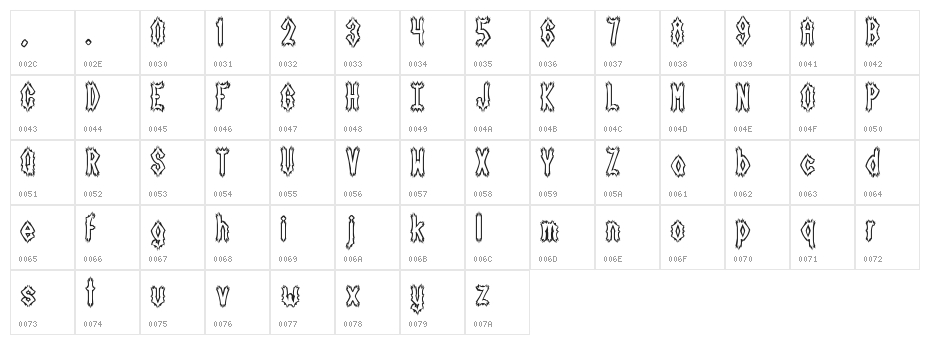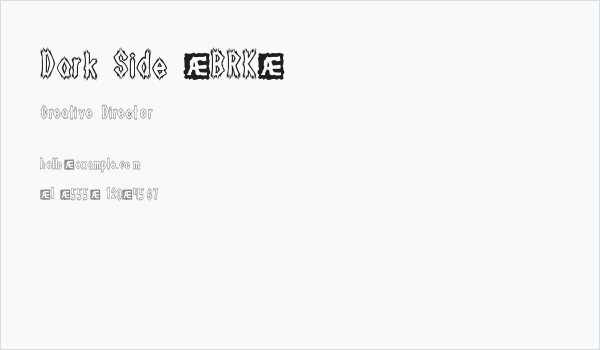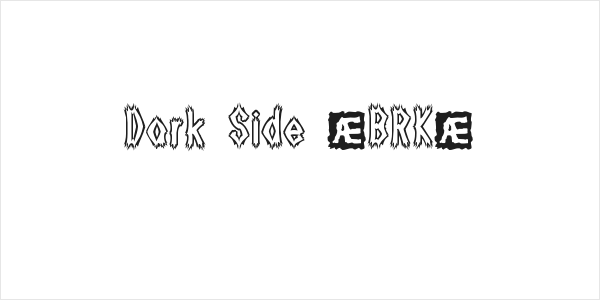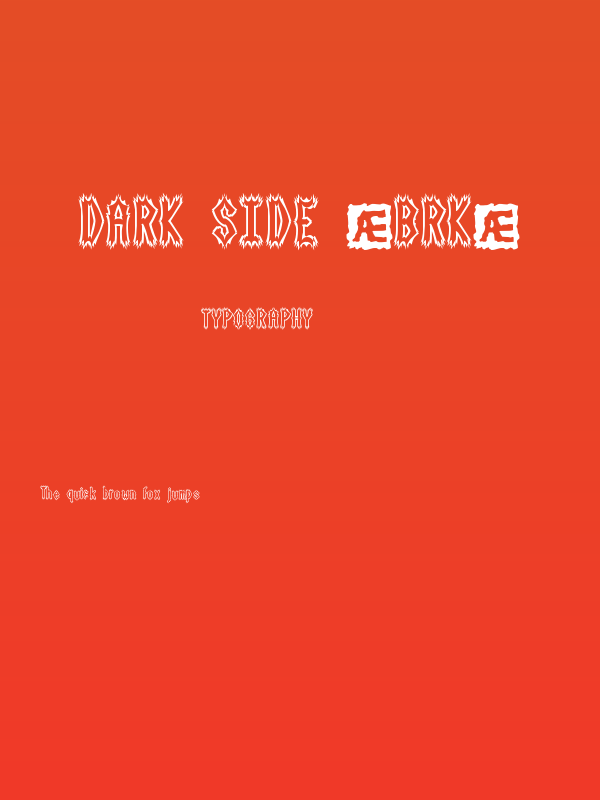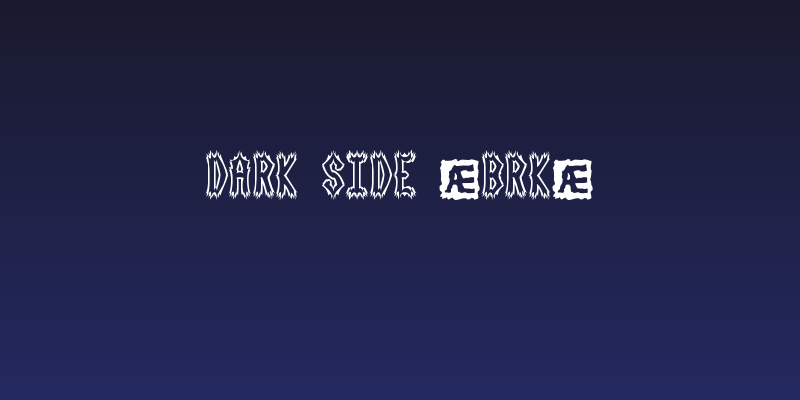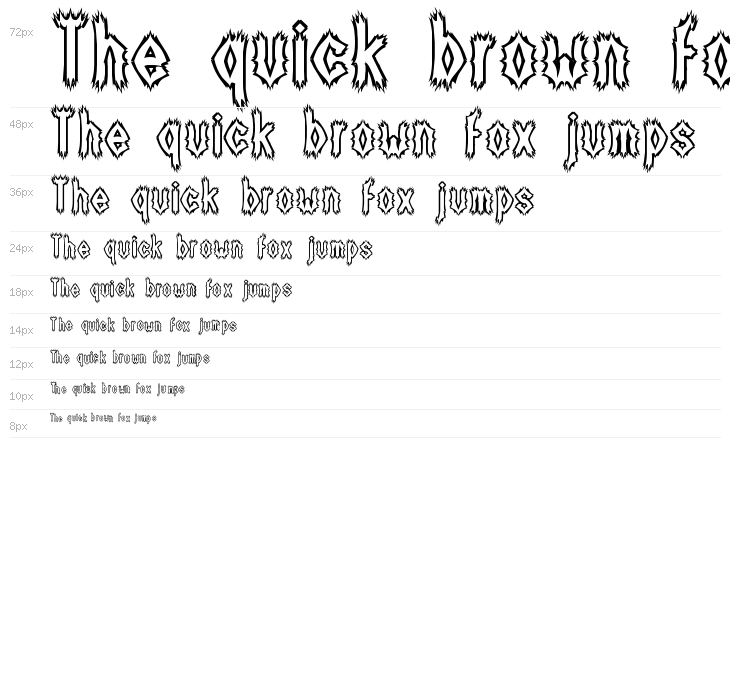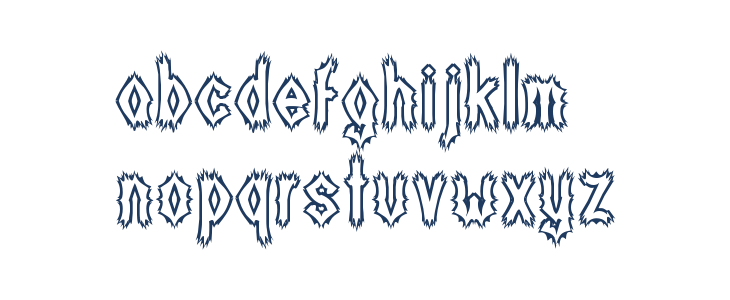
Dark Side [BRK] Font
Dark Side [BRK] Description
This font features a bold and jagged design, reminiscent of sharp, thorny edges or flames. Each character is outlined with a thick, black border that gives it a striking and aggressive appearance. The uppercase and lowercase letters maintain a consistent style, with exaggerated points and curves that create a sense of movement and energy. Numbers and special characters follow the same aesthetic, ensuring uniformity across all glyphs. This font is ideal for projects that require a dramatic and eye-catching look.
Use CaseHeadlines, Posters, Branding
Proposed ProjectsIdeal for horror-themed posters, Halloween invitations, edgy branding, or any project needing a dramatic flair.